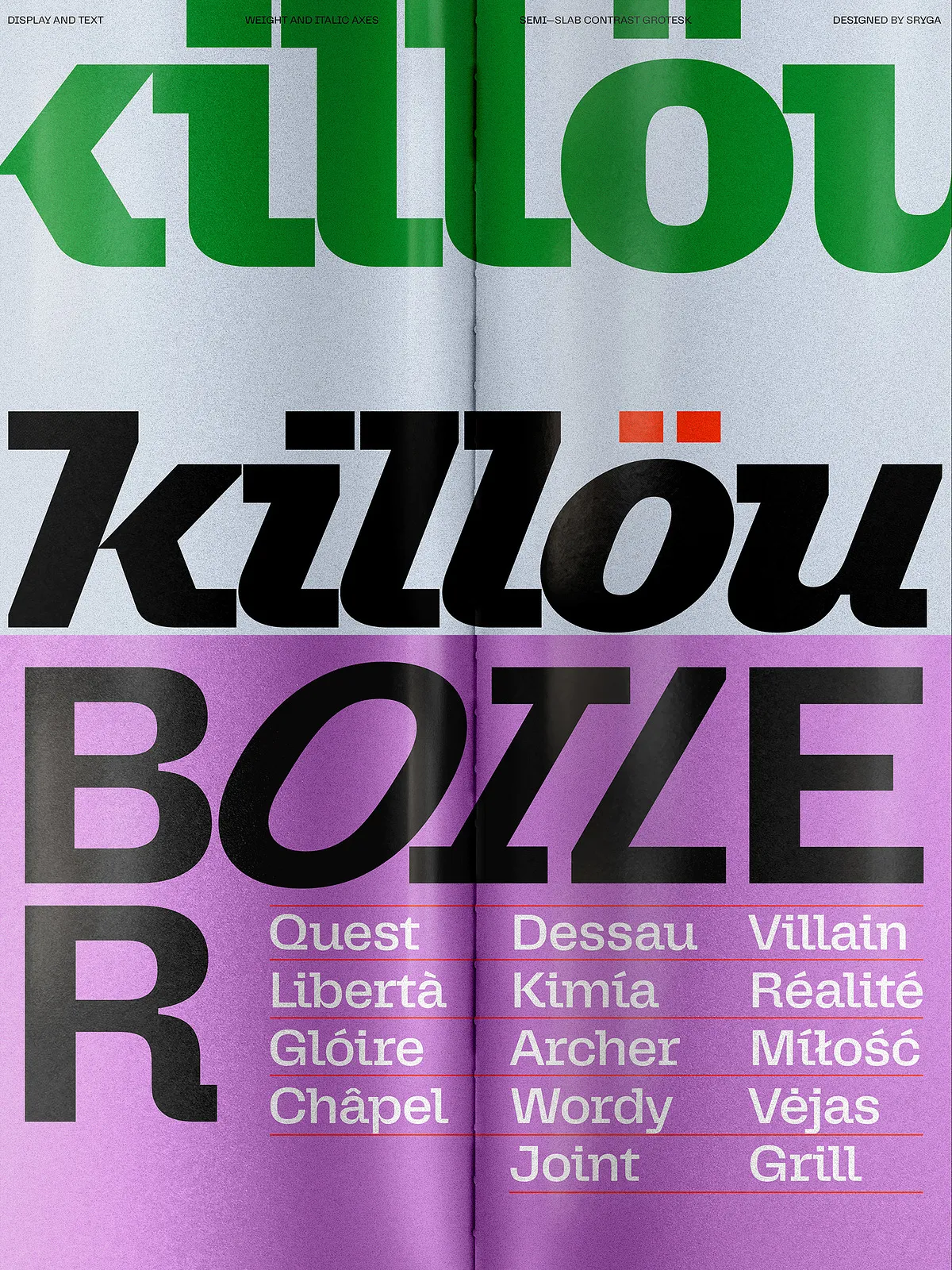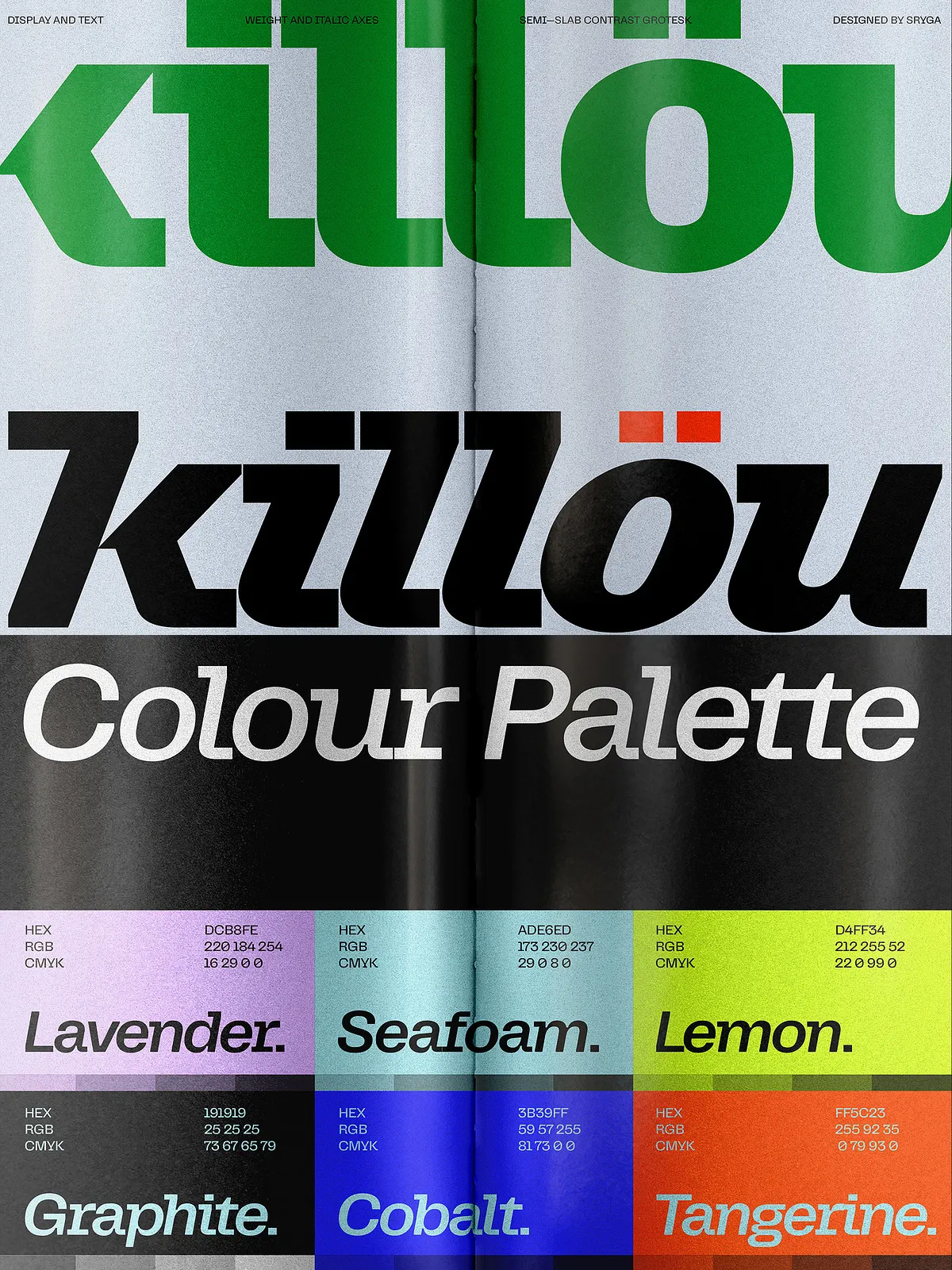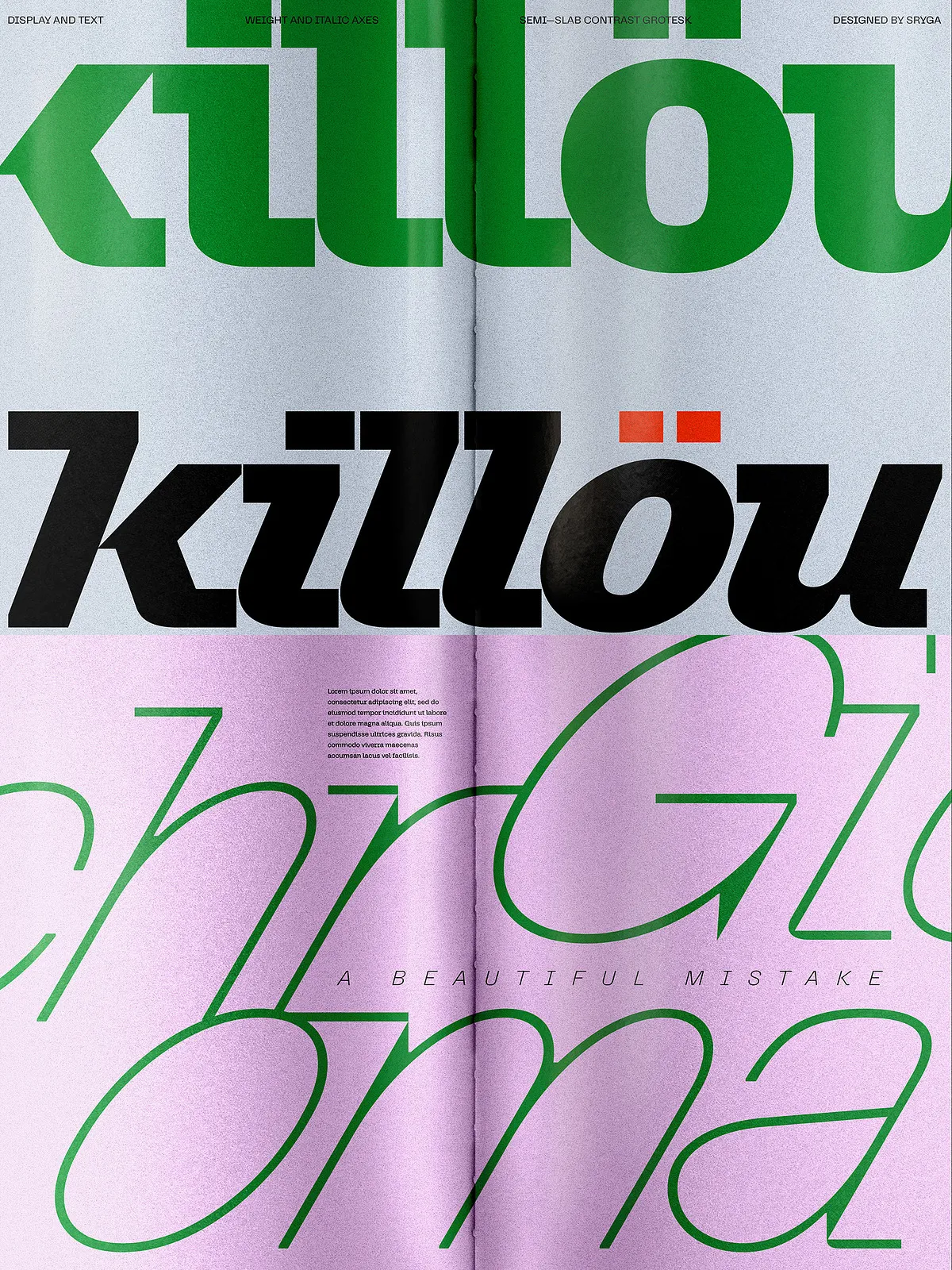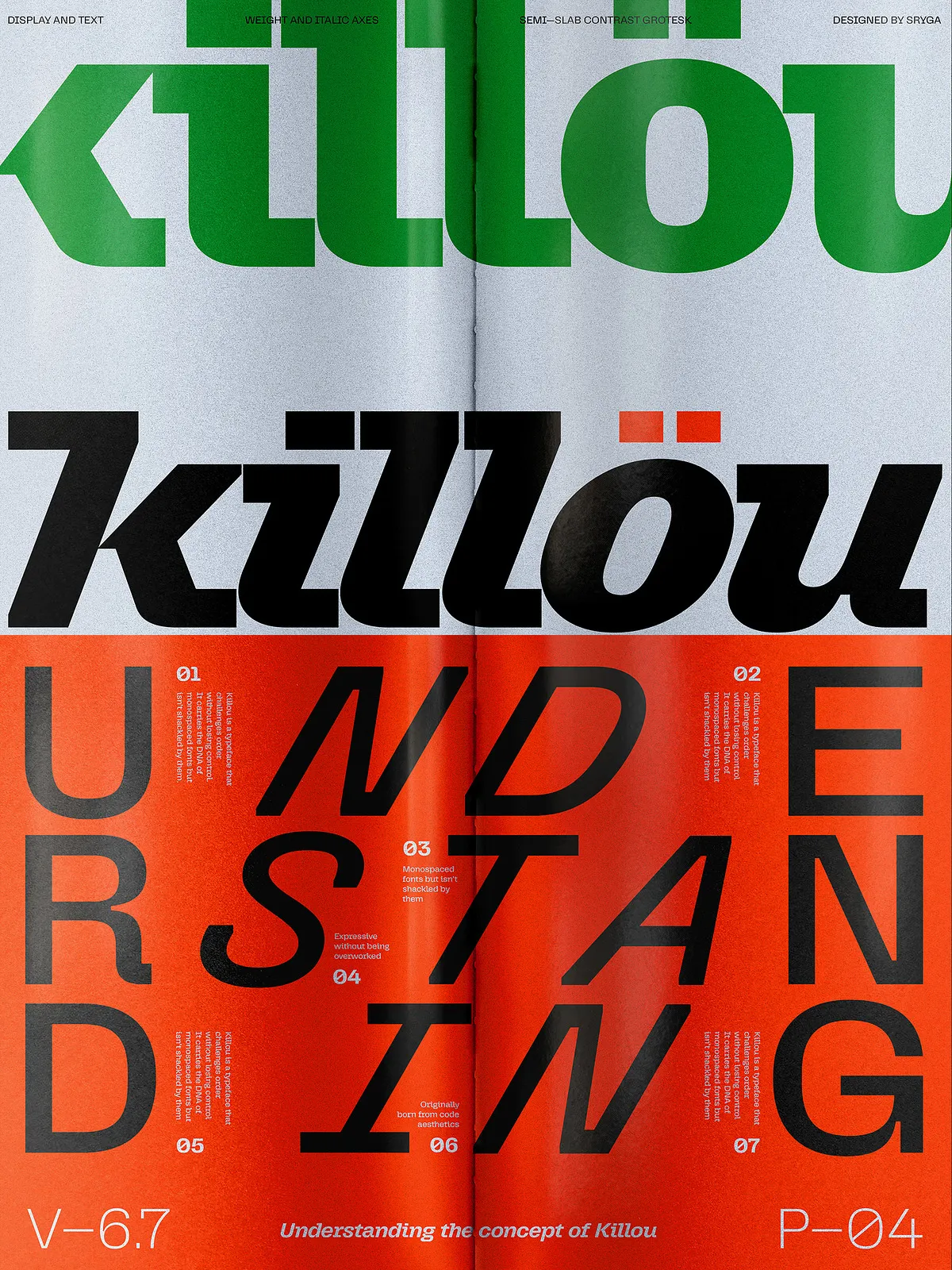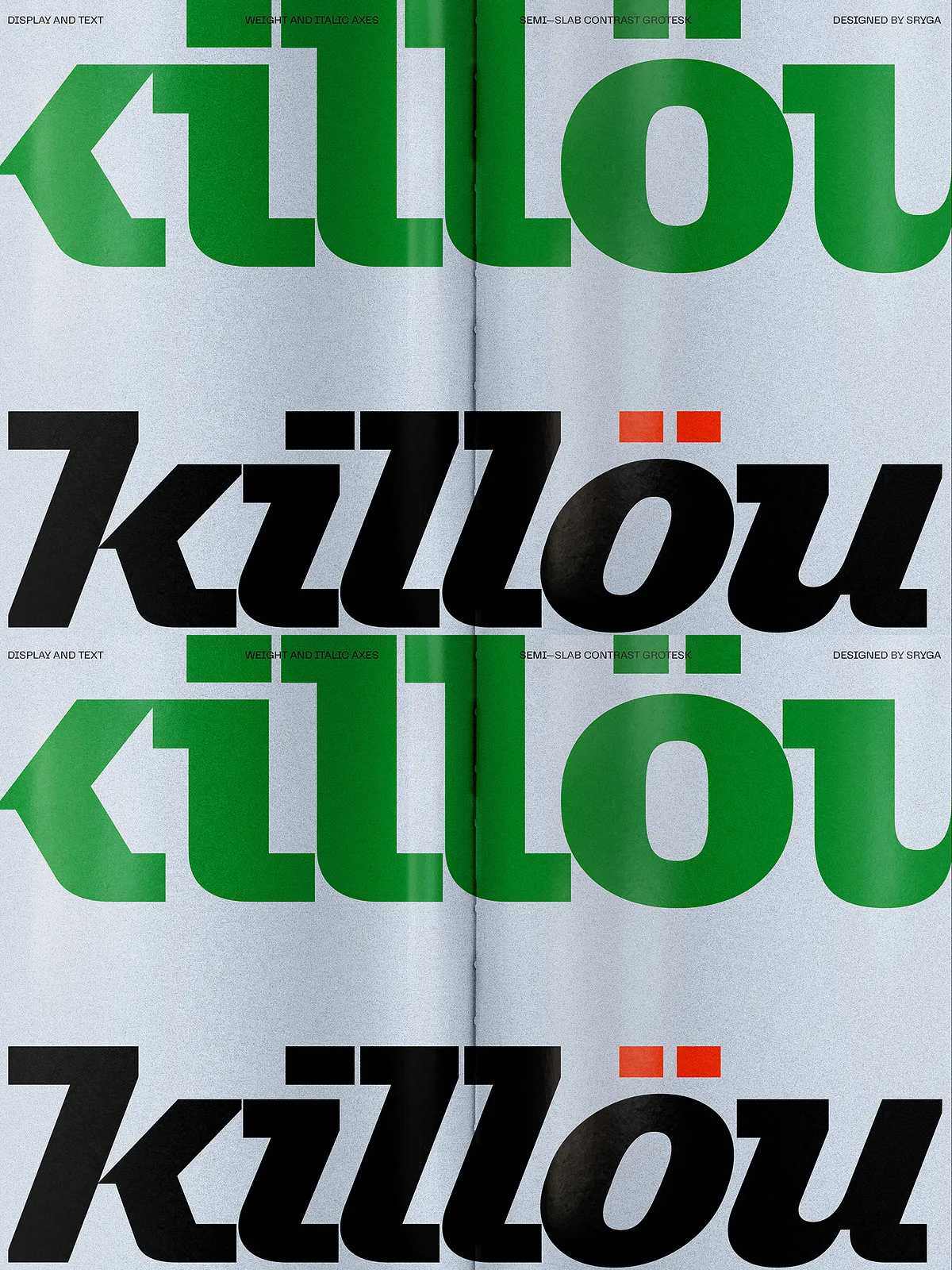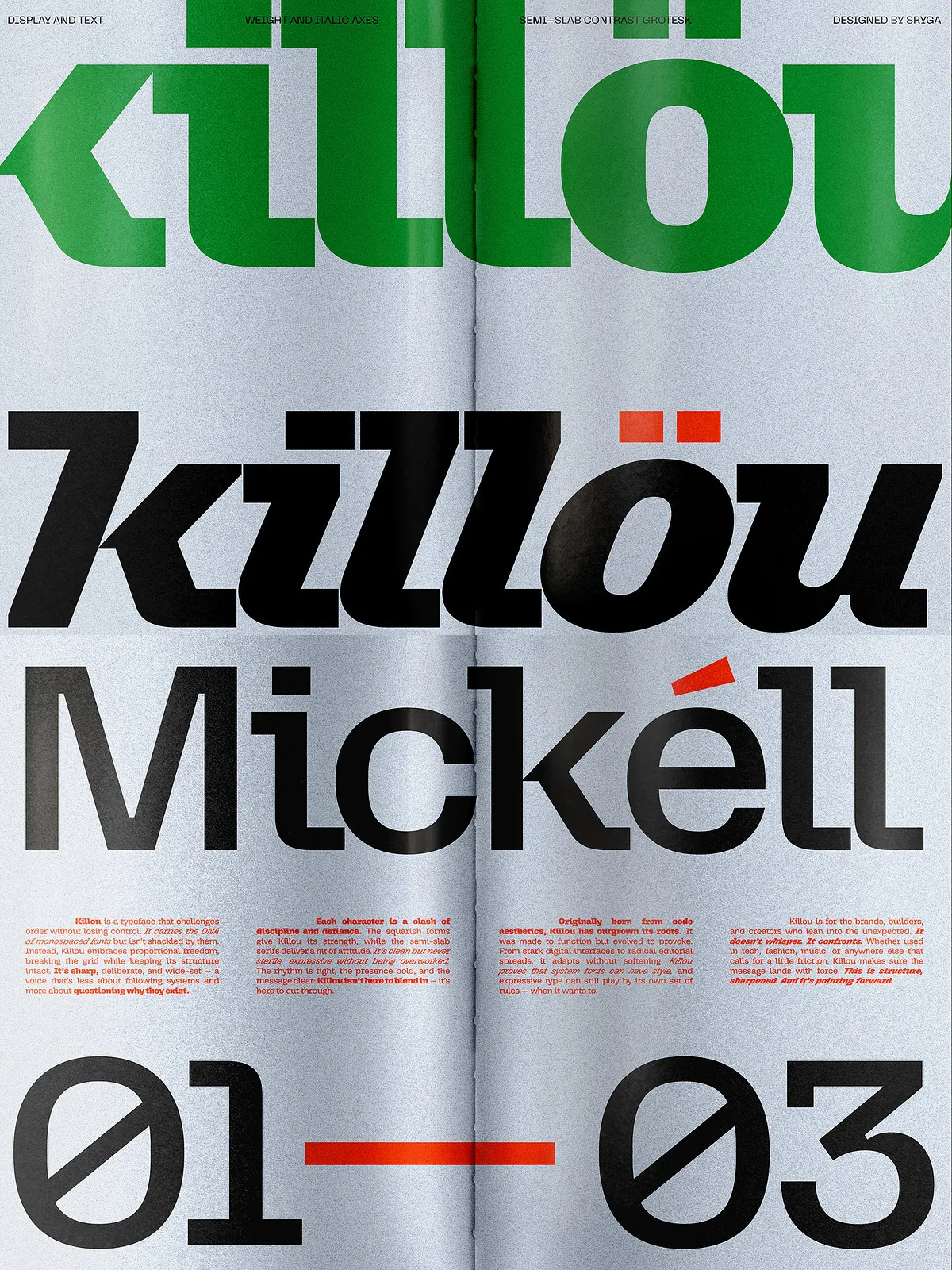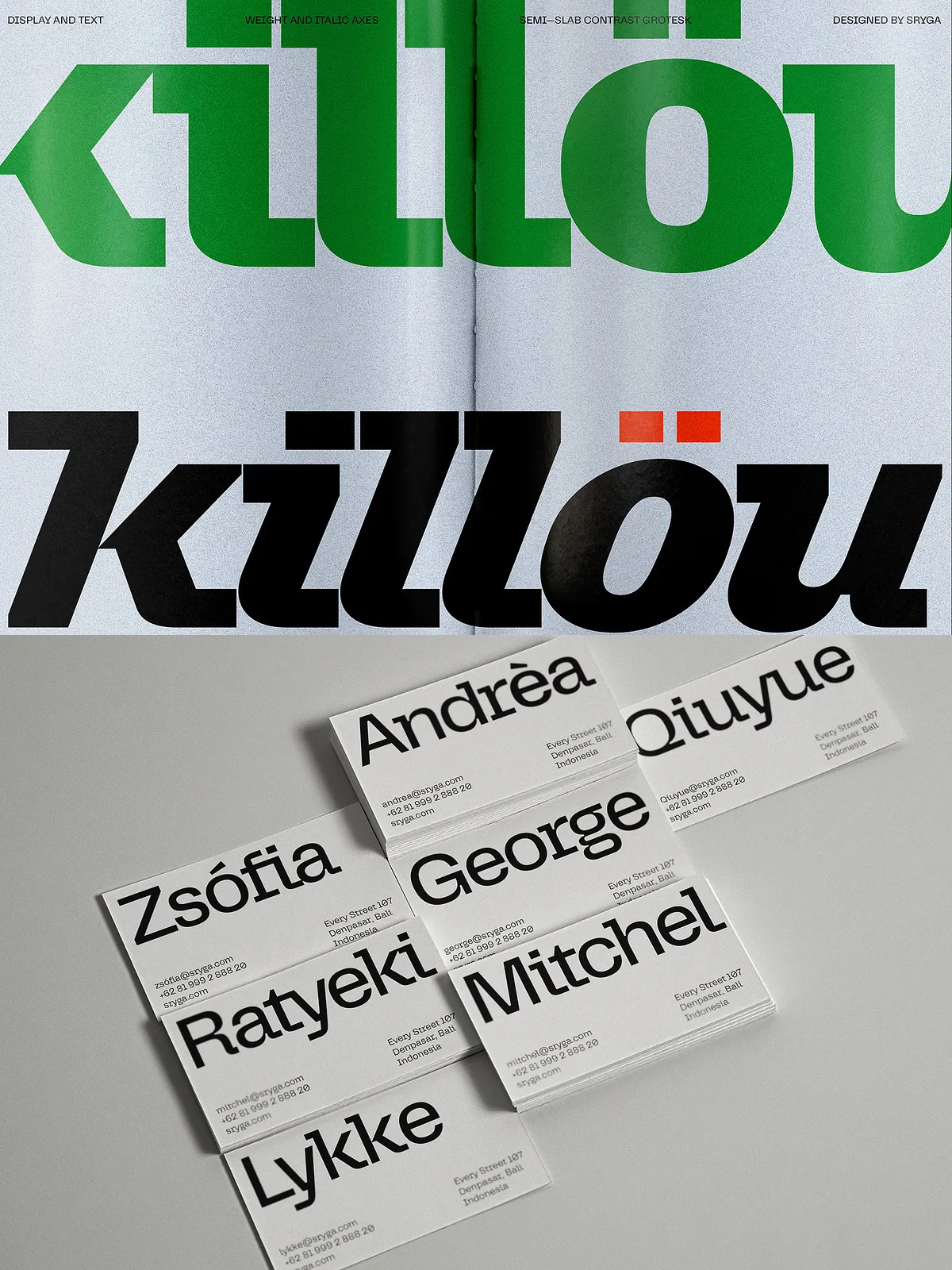
Step into the future of type with Killou—a radical departure from convention. This isn’t just a font. It’s a manifesto in letterform. Born from the rigid logic of coding fonts yet reborn with the attitude of avant-garde design, Killou shatters the rules instead of following them. Its wide-set, semi-slab structure defies traditional proportions, while sharp, decisive cuts inject raw energy into every character. Killou doesn’t just sit on the page—it steps forward. It doesn’t whisper. It speaks with intent.
Why Killou Is Built for Disruption, Not Compromise
In a world filled with polite, predictable fonts, Killou stands out—not by accident, but by design. It pulls strength from the monospaced typewriter but refuses to be confined by its grid. The result? A typeface that feels both mechanically precise and wildly free. Each letter has a sense of presence—like it’s making a statement before it’s even read.
- Uncompromising Visual Impact – Wide-set forms and bold semi-slab punches create unmatched dominance on screen and in print.
- Raw Mechanical Energy – The squarish skeleton and sharp angles deliver a striking, high-contrast look perfect for rebellion and authority.
- Designed for Voices That Demand Attention – Ideal for brands, editorial projects, and digital interfaces that refuse to be ignored.
- Full Typography Suite – Includes multiple weights and optical sizes for clarity at all scales—from headlines to body copy.
Perfect For: Bold Creative Challenges
Killou isn’t for subtle designs. It’s for the projects that need weight, grit, and presence. Use it to define a brand voice, anchor a cover, or command a digital interface.
- Branding & Identity – Launch a disruptive brand with a typeface that reflects its confidence, audacity, and edge.
- Editorial Design – Use in magazines, zines, or online publications where visual impact is non-negotiable.
- UI/UX & Web Design – Deploy for headers, buttons, or call-to-action elements that must stand out from the crowd.
- Coding & Tech Visuals – Recreate the vibe of vintage terminals, but with modern flair and visual punch.
- Merchandise & Print – Apply to posters, t-shirts, stickers, and packaging where attention is everything.
- Choose Your Weight – Use Light for elegance, Regular for balance, Bold/Black for maximum impact.
- Embrace the Grid, Then Break It – Align letters with purpose. Let Killou’s wide form create rhythm and tension, not harmony.
- Pair Strategically – Contrast with clean, neutral fonts like Inter or Helvetica Neue to let Killou shine without overpowering.
Elevate Your Message with a Typeface That Stands Up
Killou isn’t decoration—it’s declaration. This is for creators who want every character to carry weight, to be seen, to be remembered. It’s the font for designers who reject noise in favor of clarity and for brands that believe strength lies in authenticity.